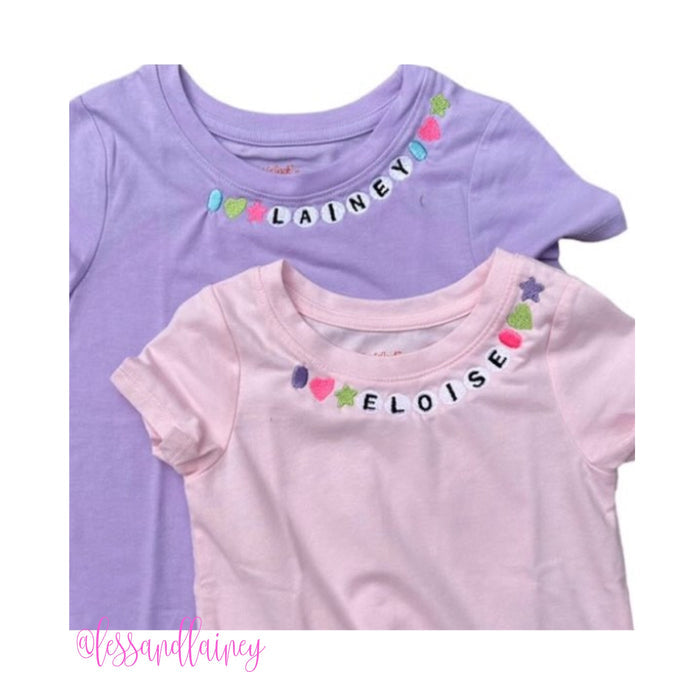
Best Friend Fill Font Embroidery Package 4x4
Unlock your creativity with the Best Friend Fill Font Embroidery Package, specially designed for crafters and DIY enthusiasts. This versatile two-color font includes uppercase letters A-Z in both fill and satin stitches across multiple sizes. Each package also features charming individual beads—including hearts and stars—available in both left and right styles to enhance your embroidery projects.
The sizes included in this package range from 1/4" to 1", along with bead strings in various lengths: 3", 3.5", 4.5", 5.5", 6.5", and 9.5". Perfect for adding a personal touch to gifts, home décor, and more, this font package will elevate every project.